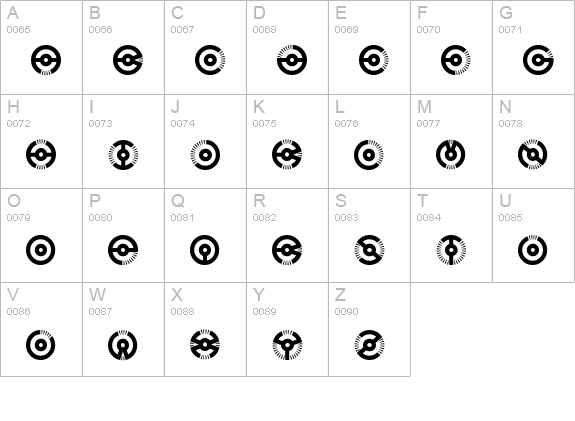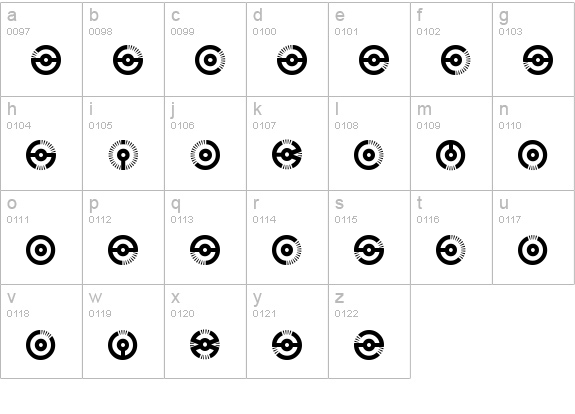
Nucleus BRK Font Details
Nucleus BRK font is a modern and sleek typeface that exudes sophistication and style. Its clean lines and rounded edges make it perfect for a wide range of design projects, from branding to advertising to web design. With a versatile and contemporary aesthetic, Nucleus BRK font is sure to make your text pop and stand out. Best of all, Nucleus BRK font is available for free download at FontsMarket.com. This means you can easily access this high-quality font and use it in your projects without any additional cost. Whether you're a graphic designer, a web developer, or anyone in need of a stylish and professional font, Nucleus BRK font is a fantastic choice. Download it today and take your designs to the next level!